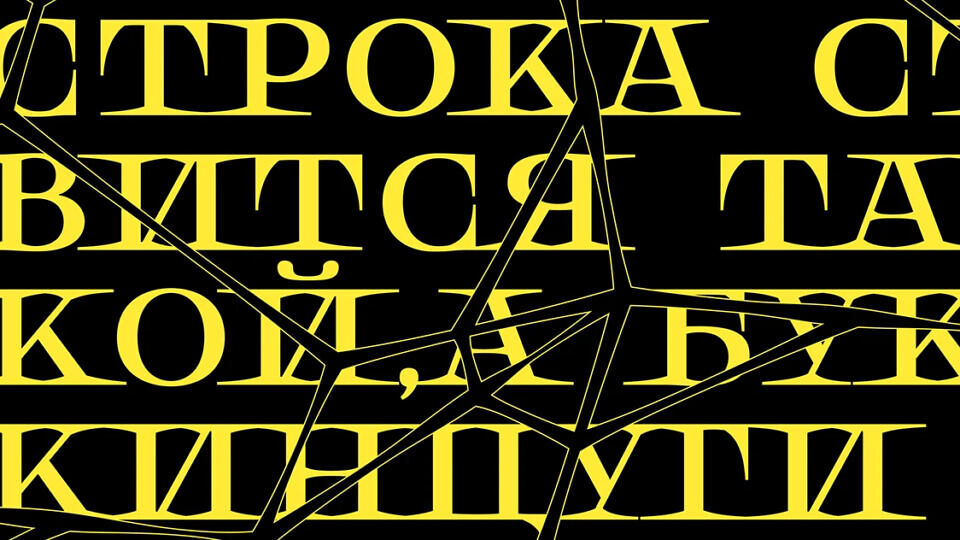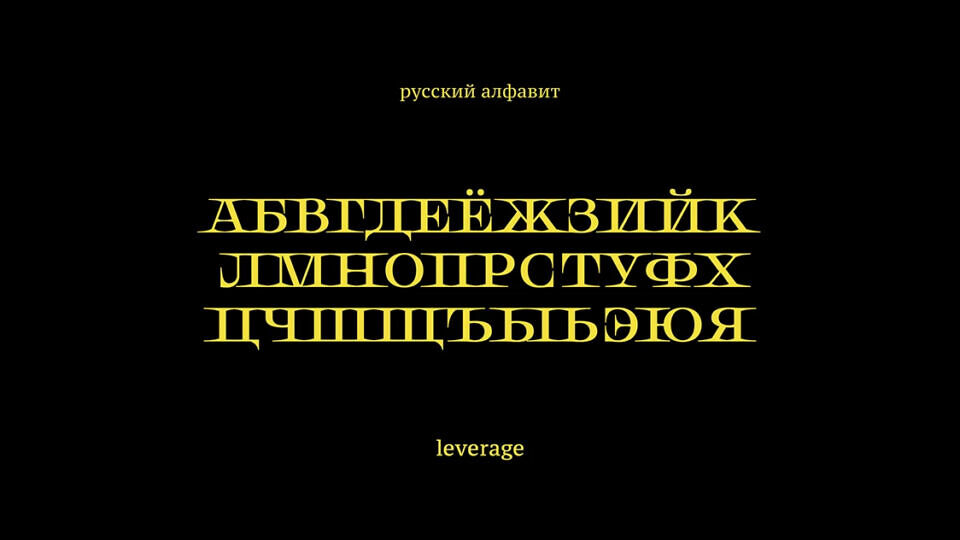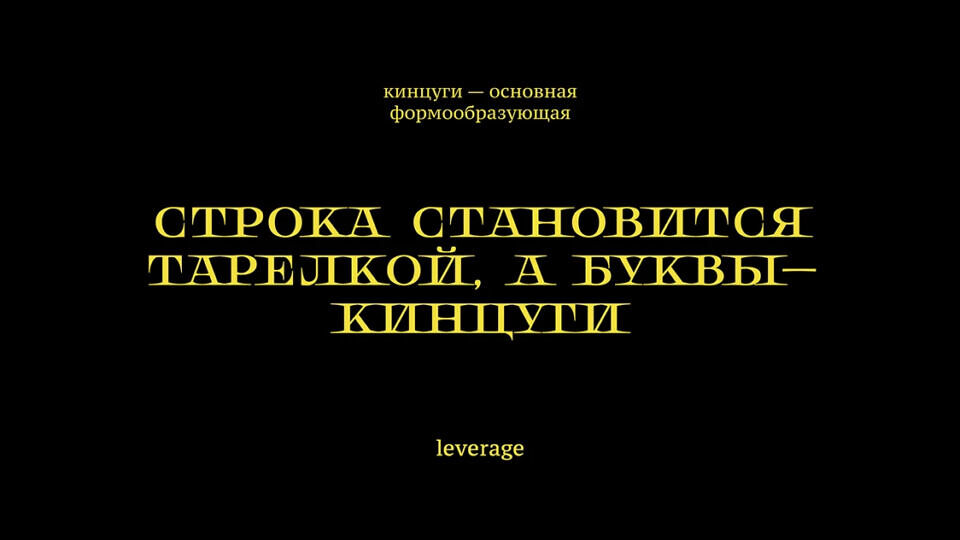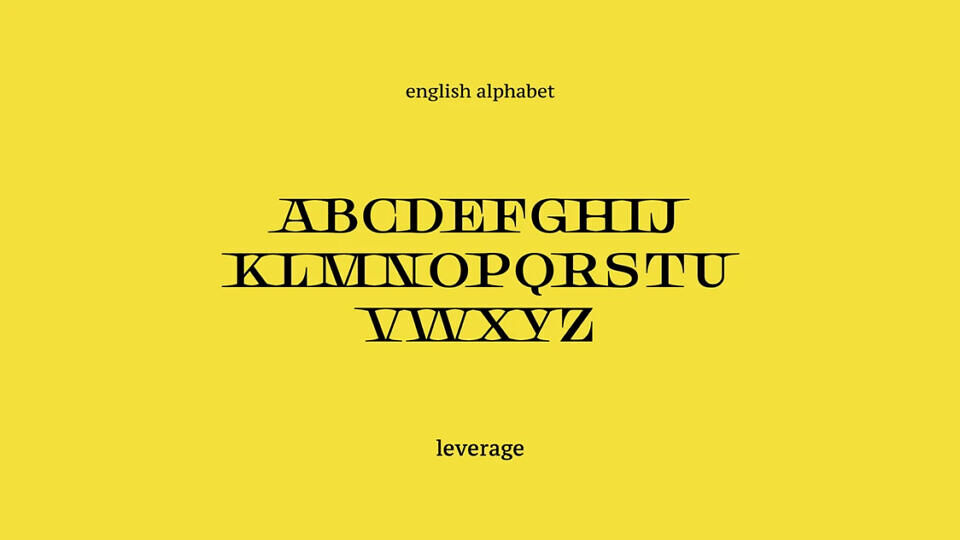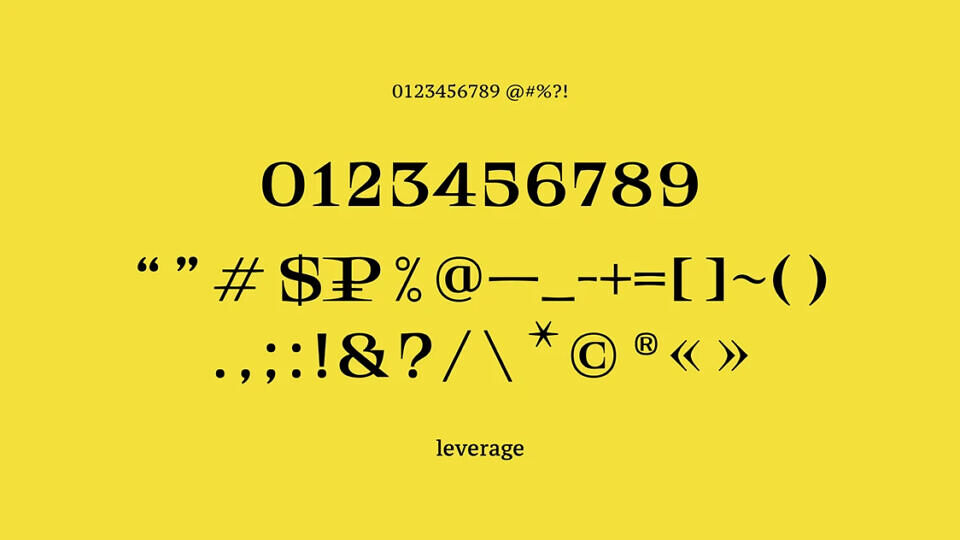
Kintsugi_LVRG is a captivating display font that embodies the Japanese art of kintsugi—repairing broken pottery with gold to celebrate imperfection. It transforms traditional typography into a leveraged visual language, where cracks and fractures are highlighted with metallic gold accents, symbolizing resilience and beauty in flaws.
Designed for bilingual use (English and Russian), it ensures seamless integration across scripts while avoiding unintended ligature formations in typography. Ideal for editorial captions, branding, or narrative projects, Kintsugi_LVRG turns text into a story of restoration and strength.